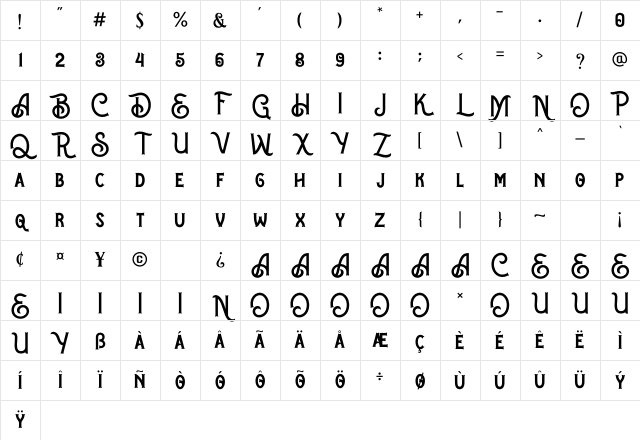
Blue Spirits Regular Free Font
Blue Spirits Regular
Foundry: Hans Co
Designer: Burhan Afif
Design Context for Blue Spirits
Blue Spirits is a composed and adaptable typeface that performs quietly and consistently across a wide range of design contexts.